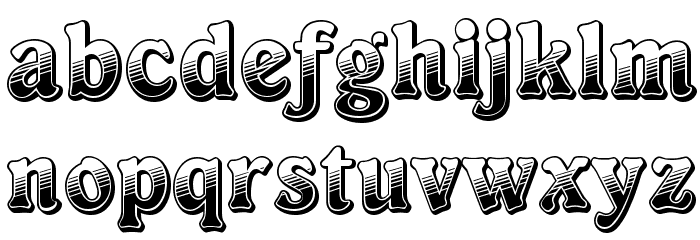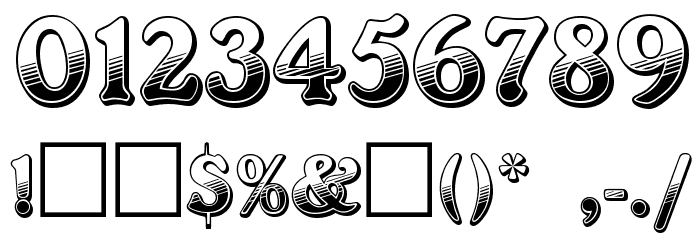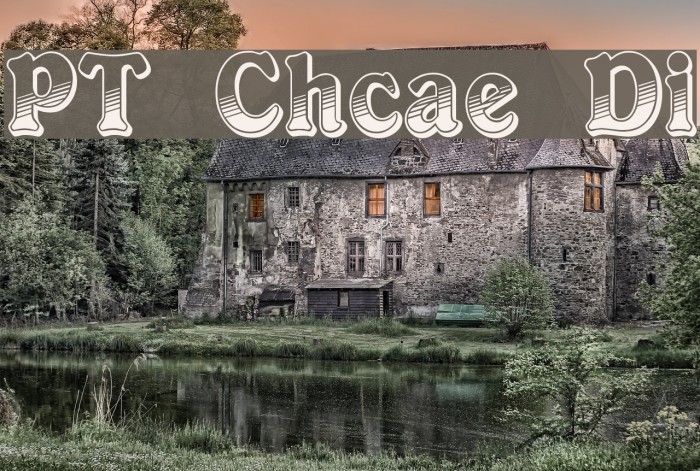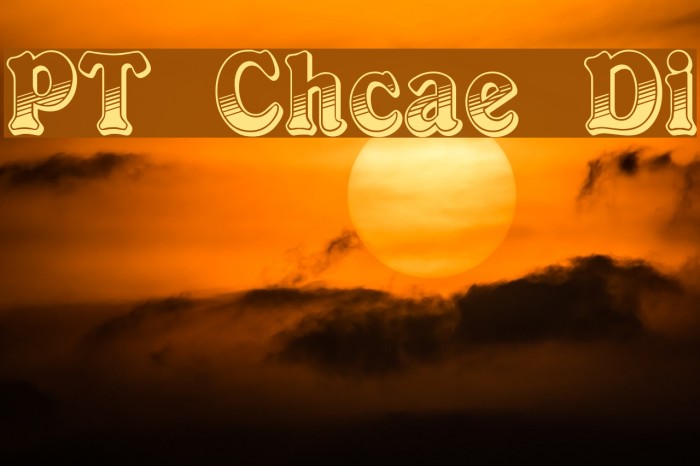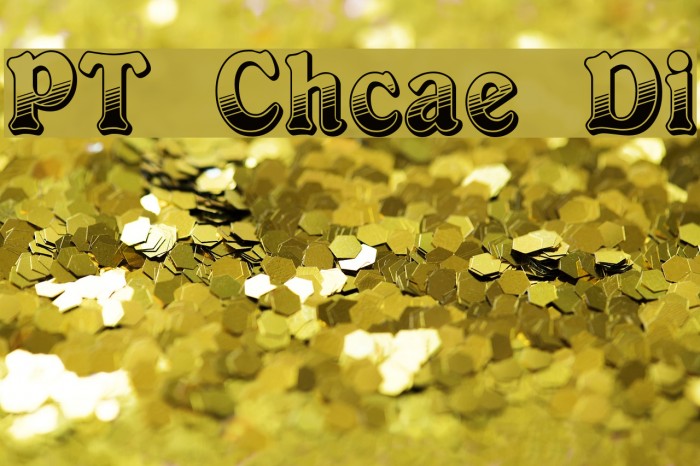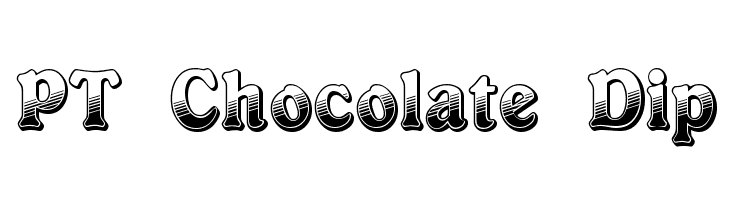
PT Chocolate Dip Font
This font features a bold and playful style with a three-dimensional effect that gives each character a sense of depth and volume. The letters are outlined with a thick black stroke, and the interior is filled with a striped pattern that adds texture and visual interest. The overall appearance is reminiscent of a vintage or retro aesthetic, making it ideal for designs that require a touch of nostalgia or whimsy. The uppercase and lowercase letters maintain a consistent style, and the numerals and special characters are equally expressive, ensuring versatility across various design applications.
A bold, playful font with a 3D effect and vintage flair.
- Proposed Projects: Ideal for retro-themed posters, playful branding, children's book covers, and eye-catching headlines.
- Overall Style: Vintage